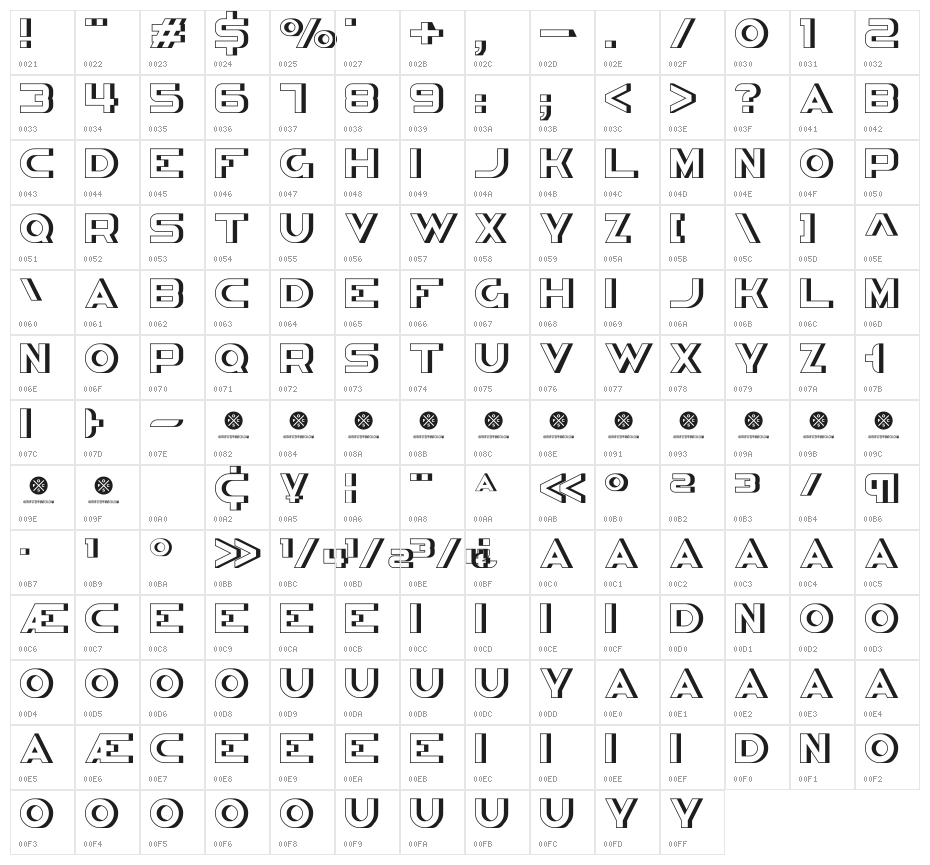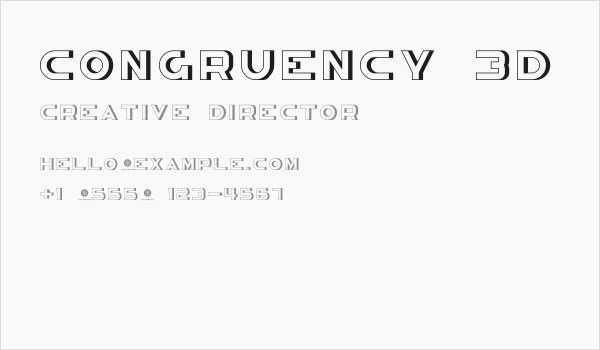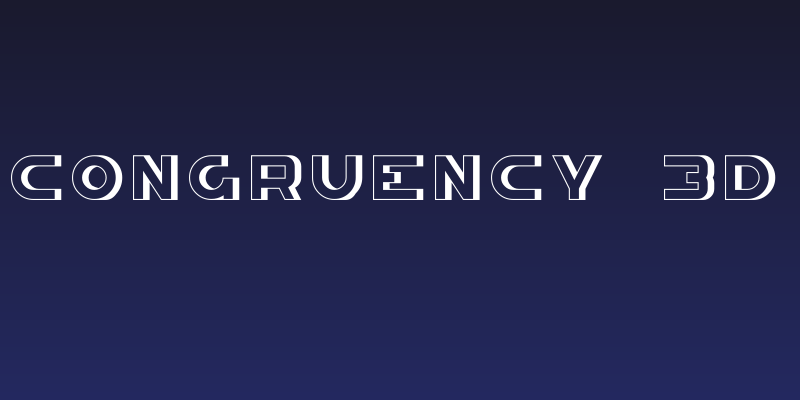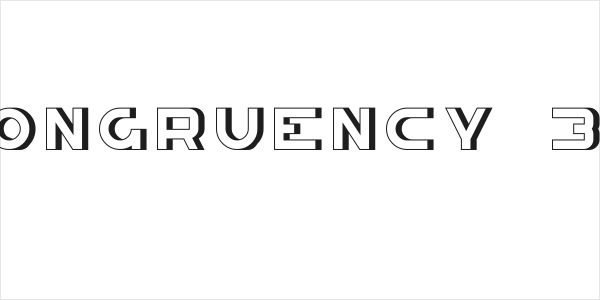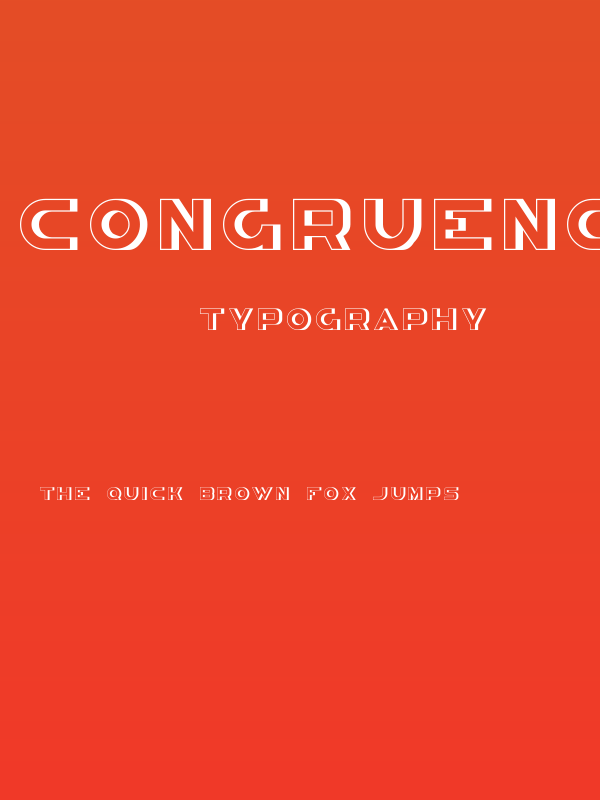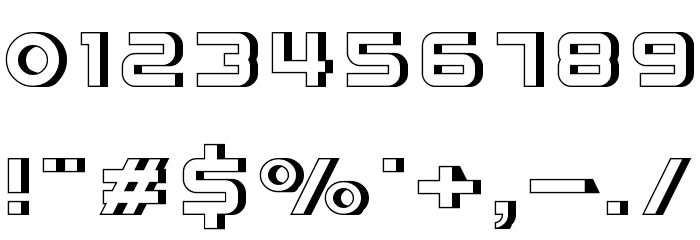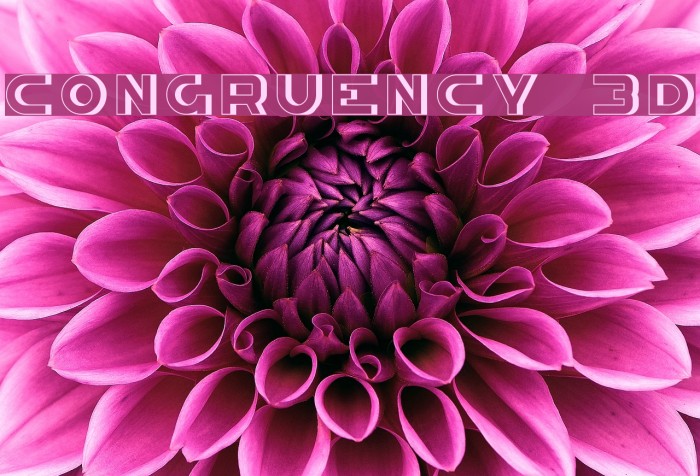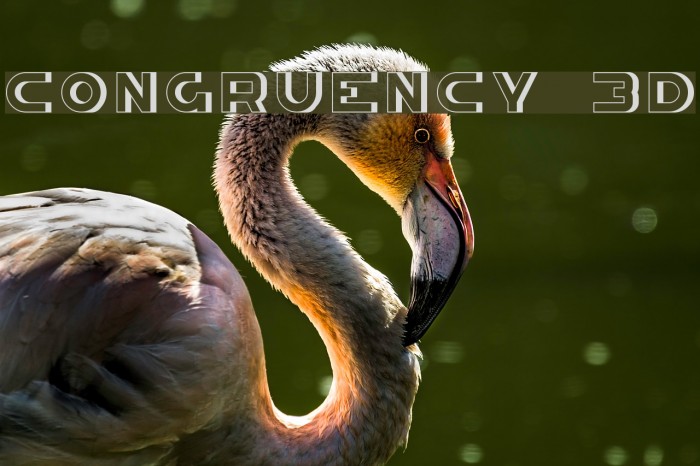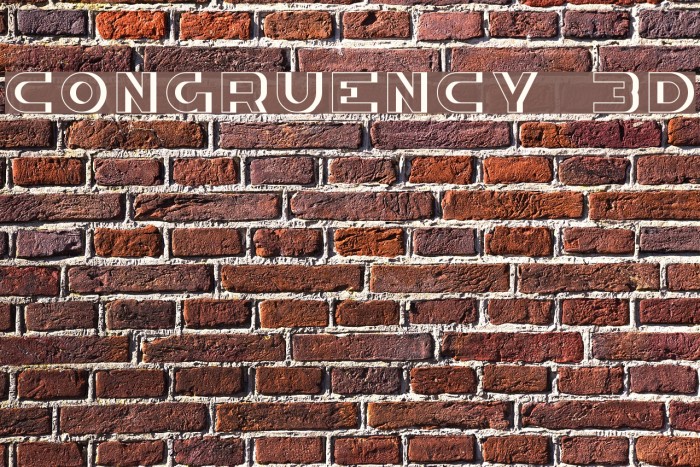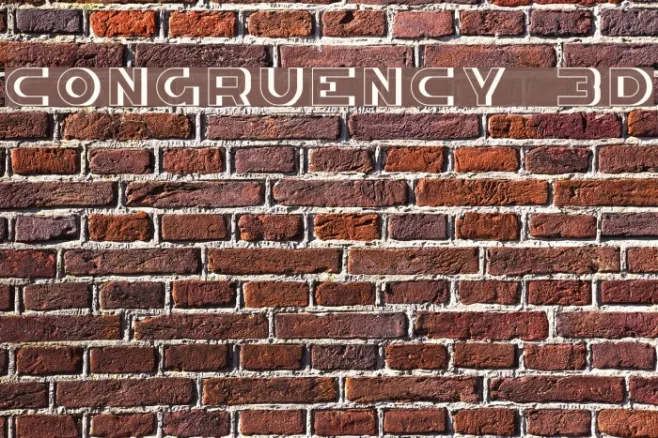
Congruency 3D Font
Congruency 3D Description
This font features a bold, geometric design with a three-dimensional effect. The characters are outlined with a shadow-like layer, giving them a striking, layered appearance. The uppercase letters are uniform in height, with sharp angles and clean lines that convey a sense of modernity and precision. The numerals and special characters maintain this consistent style, ensuring a cohesive look throughout. The font's unique 3D effect makes it stand out, making it ideal for eye-catching designs. Its structured form and bold presence make it suitable for projects that require a strong visual impact.
| Proposed Projects | Posters, logos, headlines, branding materials, and any design needing a bold statement. |